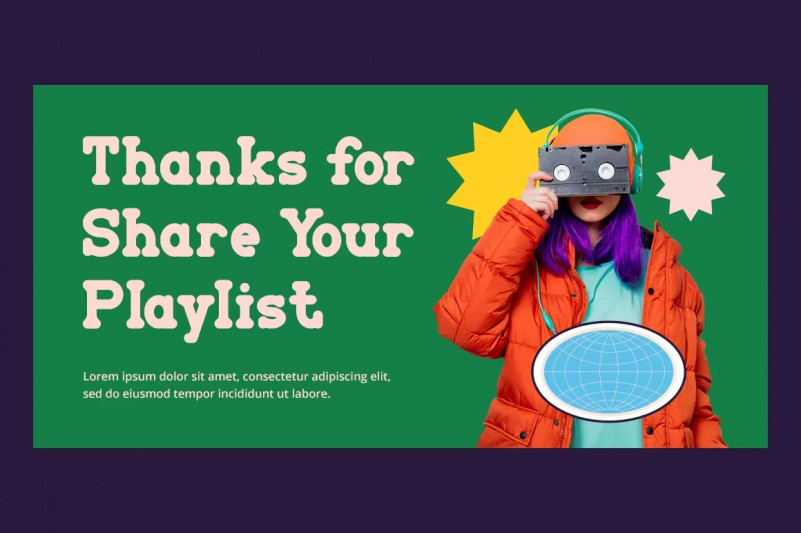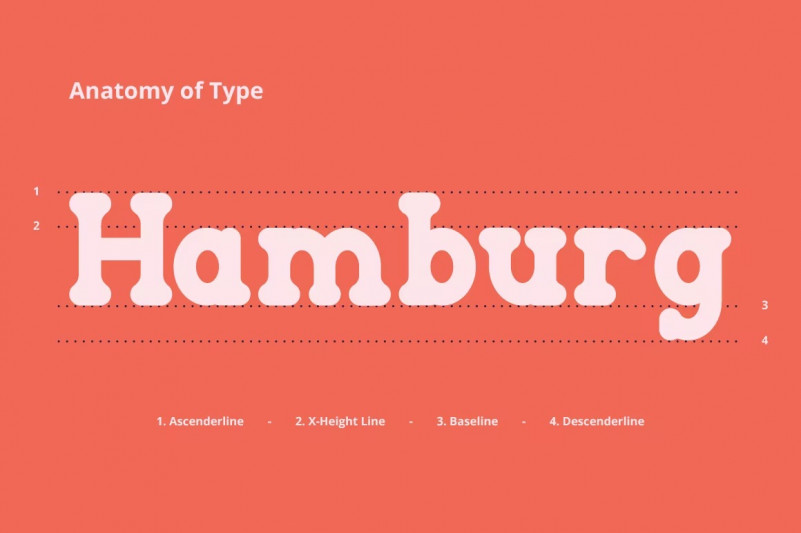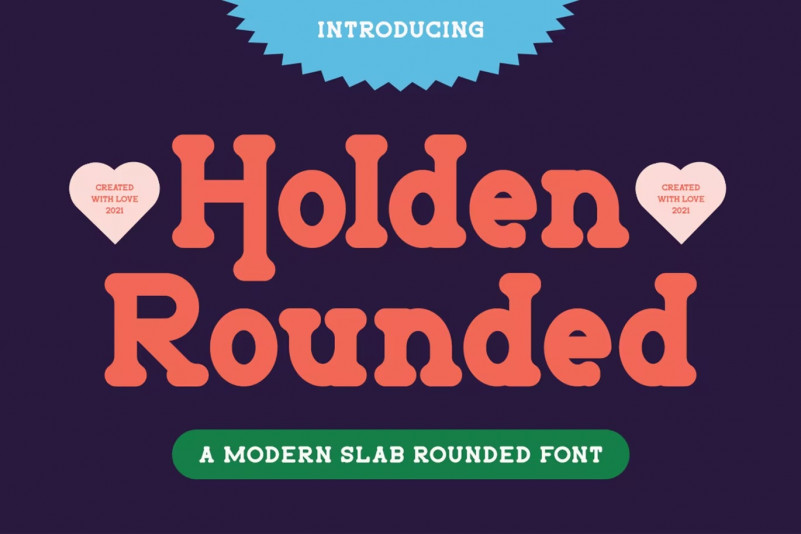
Holden Rounded Font
Holden Rounded is a cool slab serif font. It can easily be combined with a very large number of projects, so add it to your creative ideas and notice how much it sets them apart!